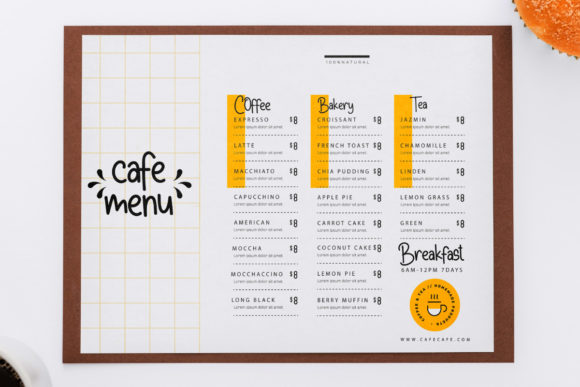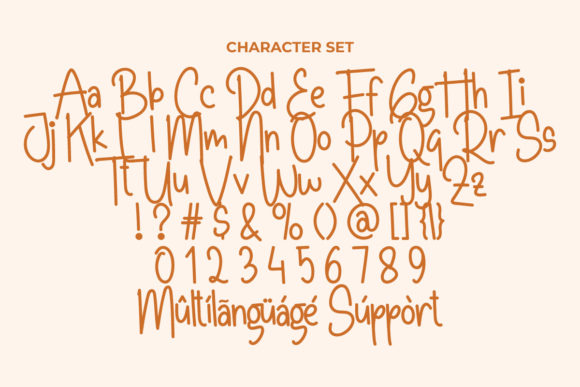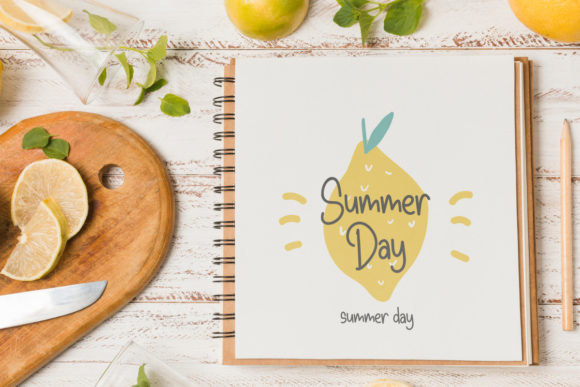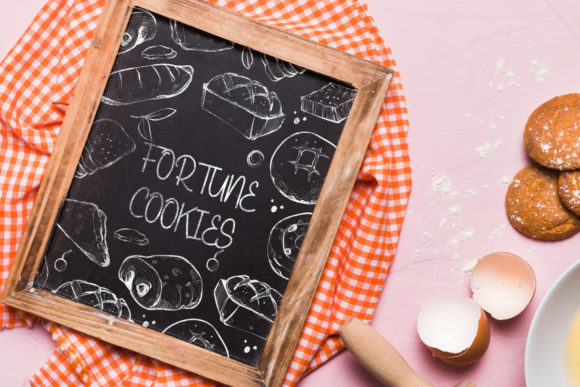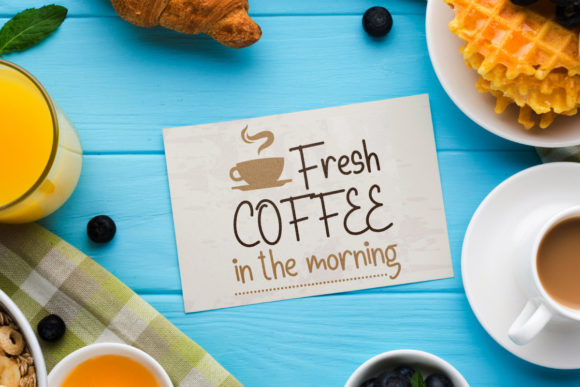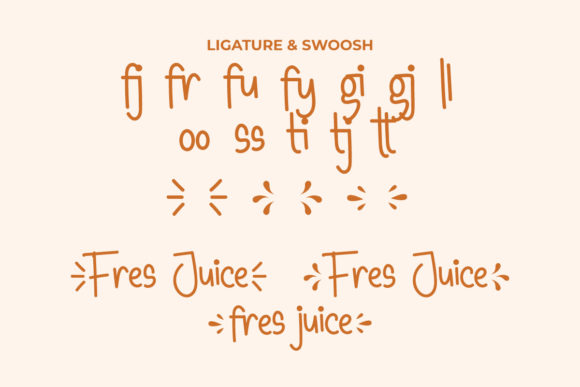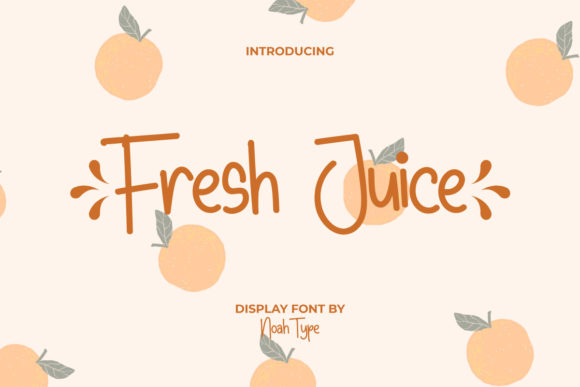
Introducing Fresh Juice Font: The Perfect Blend of Cute, Simple, and Friendly
Are you a designer or crafter looking for a font that can add a creative and realistic touch to your products? Look no further than Fresh Juice Font! This adorable, handwritten font is designed to bring a classic yet adaptable style to your designs, making it perfect for a wide range of projects.
What Makes Fresh Juice Font So Special?
Fresh Juice Font is a cute, simple, and friendly handwritten font that is sure to capture the hearts of designers and crafters alike. Its unique and charming appearance is designed to add a personal touch to any product, making it stand out from the crowd. Whether you’re working on a branding project, packaging design, or craft project, Fresh Juice Font is the perfect choice.
Key Features of Fresh Juice Font
- Cute and Friendly Design: Fresh Juice Font boasts a charming and approachable design that is sure to delight your audience.
- Simple and Adaptable: This font is designed to be versatile and can be used on a wide range of projects, from classic and traditional to modern and trendy.
- PUA Encoded: Fresh Juice Font is PUA encoded, making it easy to access all glyphs and swashes, allowing you to create unique and creative designs.
Benefits of Using Fresh Juice Font
So why choose Fresh Juice Font for your next project? Here are just a few benefits of using this amazing font:
- Adds a Personal Touch: Fresh Juice Font’s handwritten design adds a personal and human touch to your products, making them more relatable and engaging.
- Enhances Brand Identity: This font can help you create a unique and recognizable brand identity that sets you apart from your competitors.
- Easy to Use: With its PUA encoding, Fresh Juice Font is easy to use and allows you to access a wide range of glyphs and swashes, making it simple to create stunning designs.
Fresh Juice Font is the perfect choice for designers and crafters who want to add a creative and realistic touch to their projects. Whether you’re working on:
- Branding and Packaging: Use Fresh Juice Font to create eye-catching logos, labels, and packaging that stands out.
- Craft Projects: Add a personal touch to your craft projects, such as handmade cards, gift tags, and scrapbooking.
- Digital Designs: Use Fresh Juice Font to create stunning digital designs, such as social media graphics, blog posts, and website headers.
Get Creative with Fresh Juice Font
With Fresh Juice Font, the creative possibilities are endless! Here are a few ideas to get you started:
- Create a Unique Logo: Use Fresh Juice Font to create a custom logo that reflects your brand’s personality.
- Design Eye-Catching Packaging: Add a personal touch to your packaging with Fresh Juice Font and make your products stand out.
- Make Handmade Cards and Gift Tags: Use Fresh Juice Font to create beautiful, handmade cards and gift tags that are sure to impress.
In conclusion, Fresh Juice Font is a must-have for designers and crafters who want to add a creative and realistic touch to their projects. With its cute, simple, and friendly design, PUA encoding, and adaptability, this font is perfect for a wide range of projects. So why wait? Get creative with Fresh Juice Font today and take your designs to the next level!